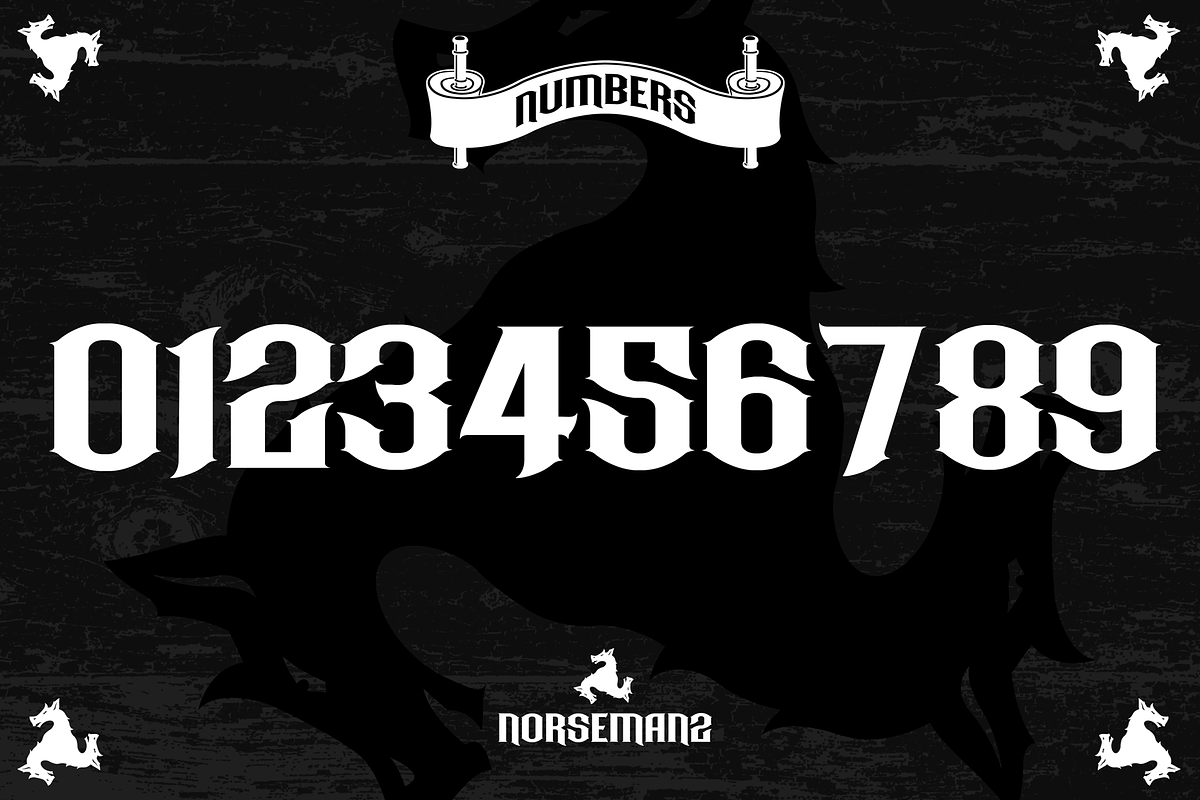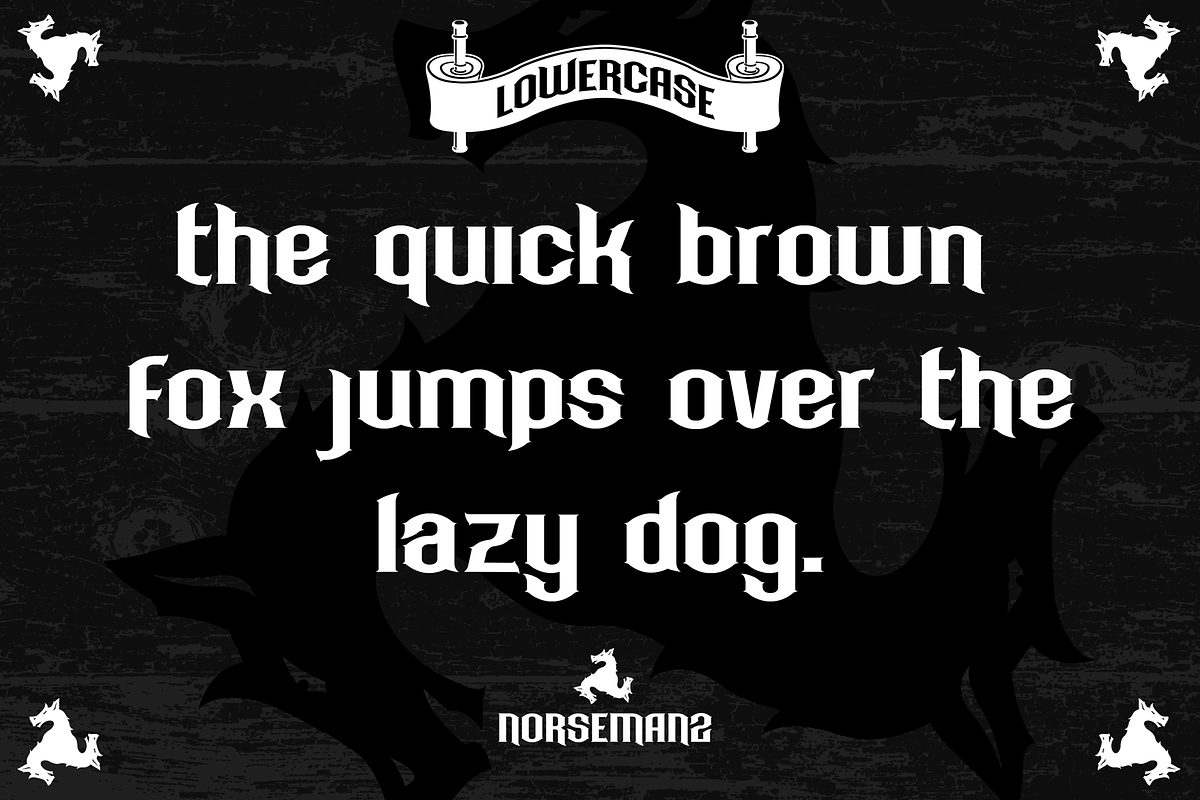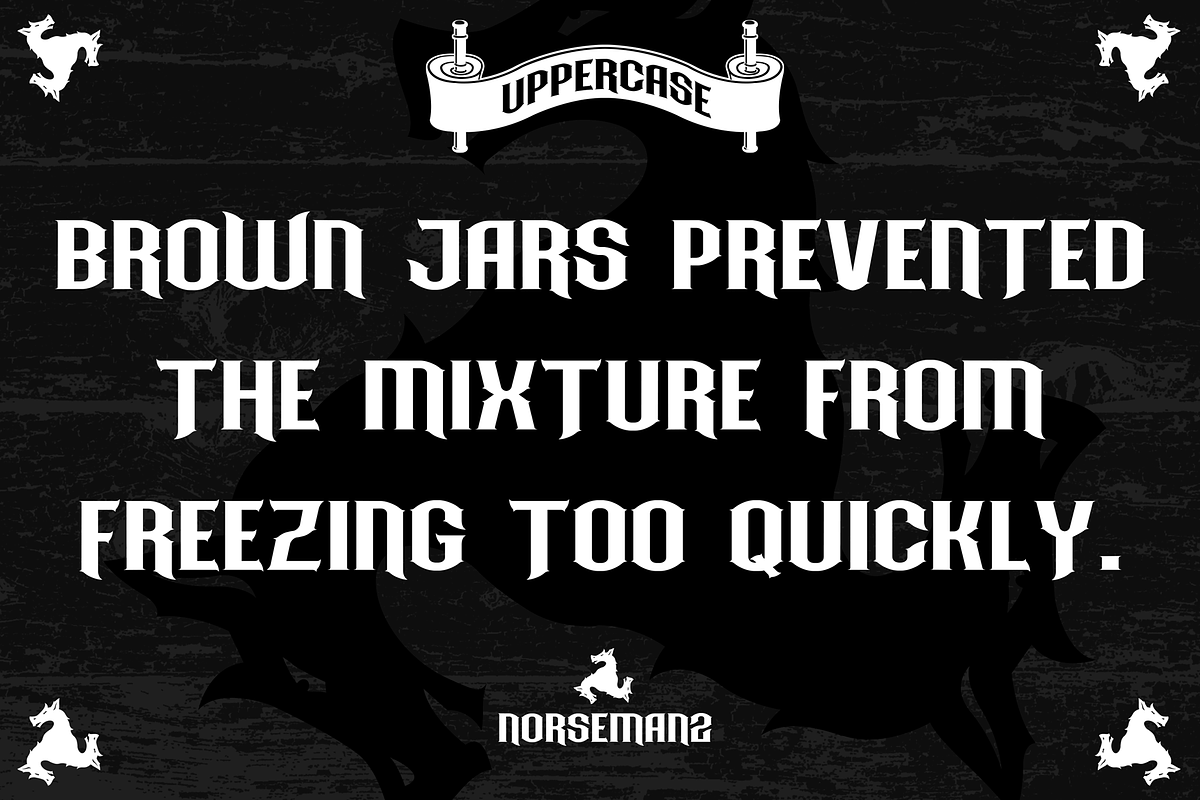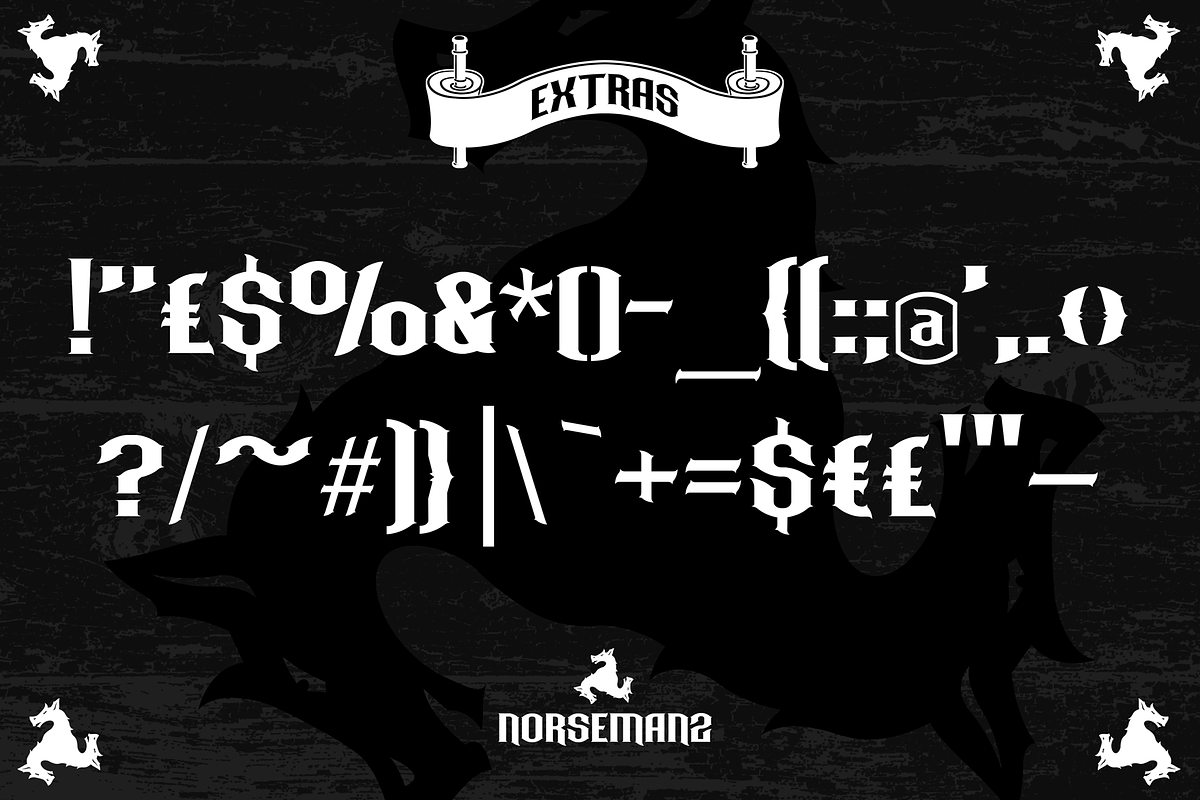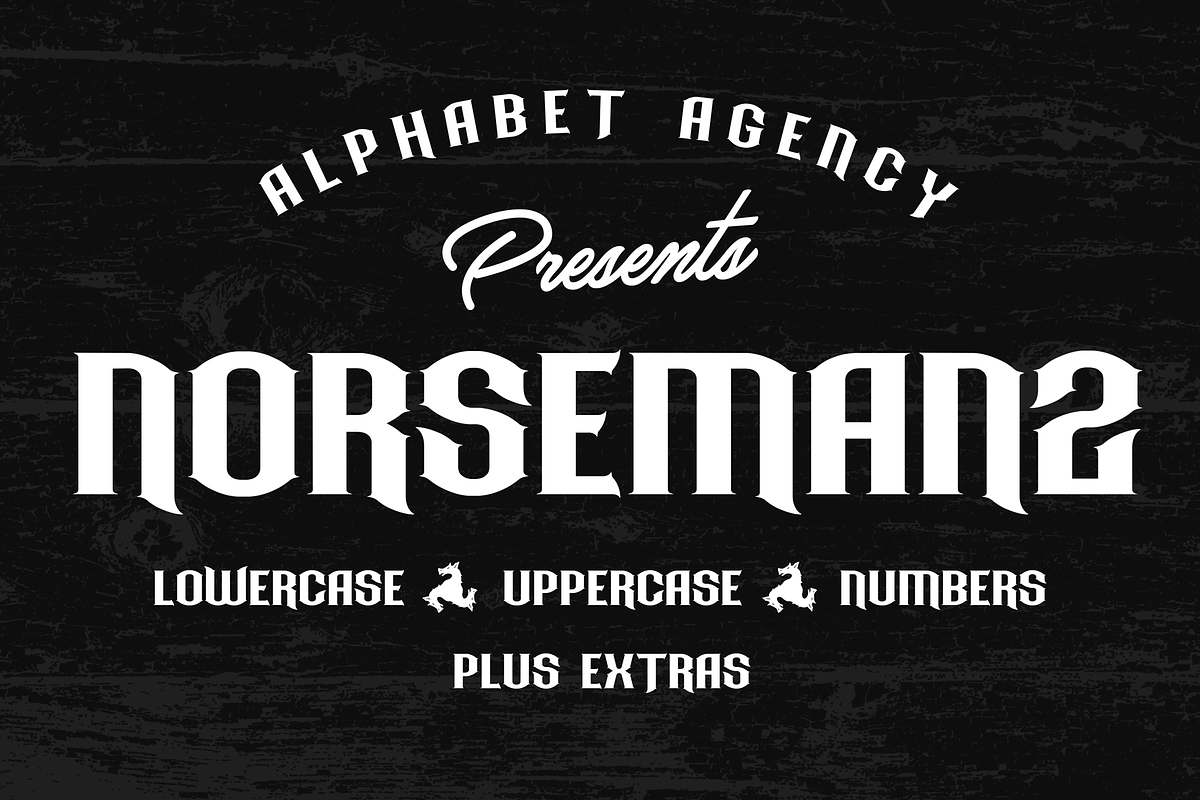
Norseman 2
Forged to be as imposing as a Norse horde ready to stampede into battle, Works great in all caps which it was initially designed to. I designed the lowercase characters to match really well with each other and the uppercase, so it works well in title case.
Designed by Jon Swinn.